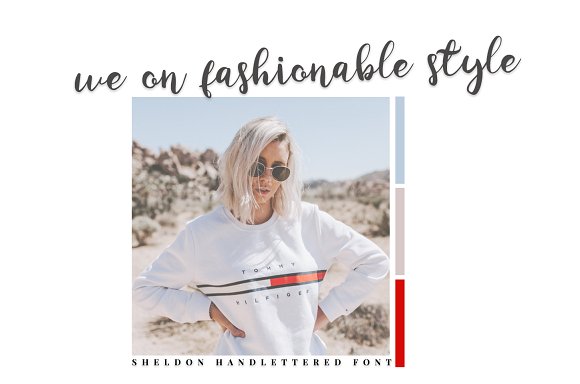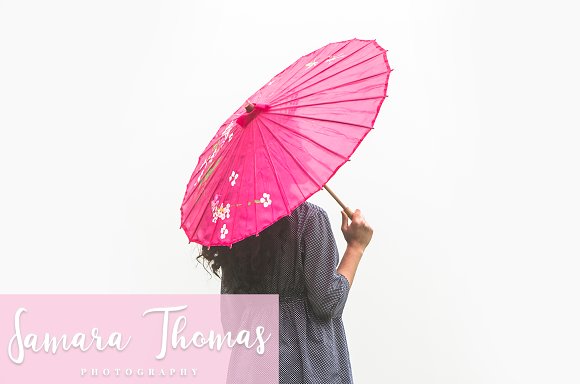
sheldon – script font
sheldon – a new fresh handmade calligraphy font.
Very suitable for greeting cards, branding materials, business cards, quotes, posters, and more!This font are perfect for wedding postcard. Or you can create perfect and unique design of your logo, blog, stationery, marketing, magazines and more 🙂